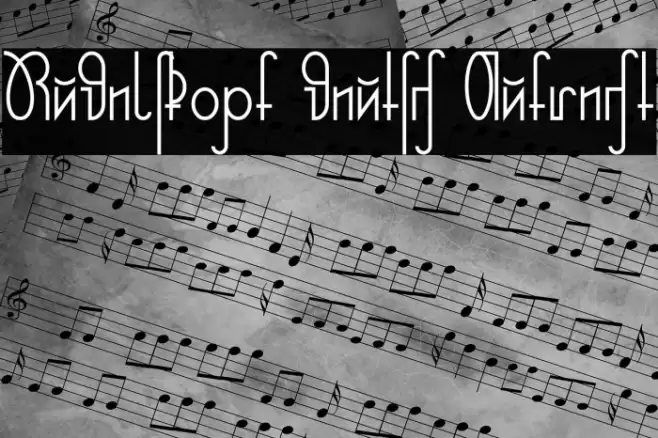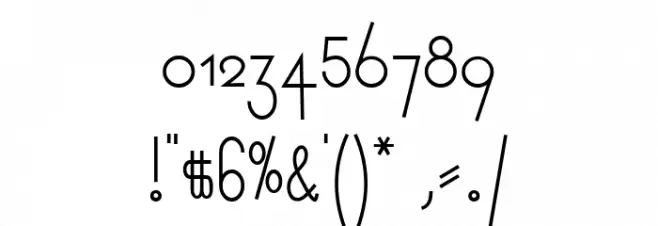
Rudelskopf deutsch Aufrecht Font
Rudelskopf deutsch Aufrecht Description
This font features a unique and decorative style with an artistic flair. The characters are elongated and have a distinct curvature, giving them an elegant and sophisticated appearance. The uppercase letters are particularly ornate, with intricate loops and swirls that add a touch of whimsy. The lowercase letters maintain a similar style, though they are slightly more subdued. The numerals are consistent with the overall design, featuring the same elongated and curved elements. Special characters are creatively integrated, maintaining the font's artistic theme. This font is ideal for projects that require a touch of elegance and creativity.
An artistic and decorative font with elongated, curved characters from Uncategorized fonts.